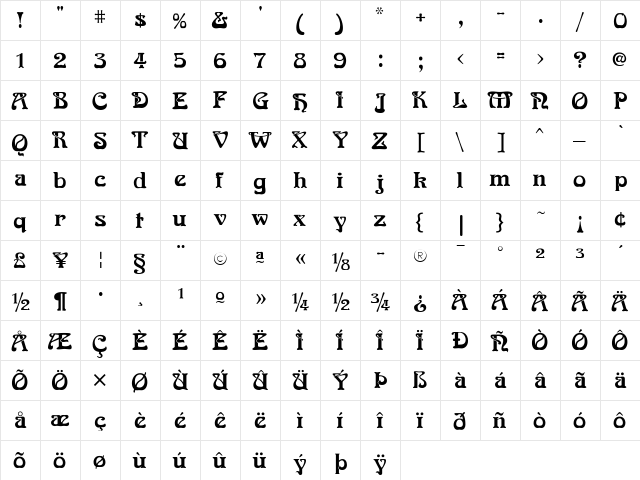
NouveauFLF Regular
Design Context for NouveauFLF Typeface
NouveauFLF is a composed and adaptable typeface that performs quietly and consistently across a wide range of design contexts.